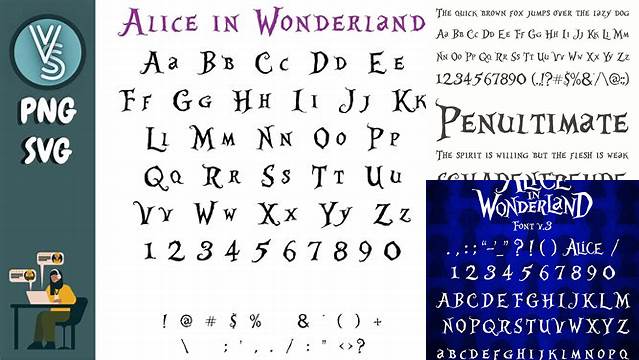
Alice In Wonderland Font: Free For Canva!
Hey guys! Ever wanted to give your designs that whimsical, Alice in Wonderland feel? Well, you're in luck! Using an Alice in Wonderland font in Canva is a fantastic way to add a touch of fantasy and nostalgia to your projects. Whether you're creating invitations, posters, or social media graphics, the right font can make all the difference. Let's dive into how you can find and use these magical fonts for free on Canva.
Choosing the Perfect Alice in Wonderland Font
Selecting the right font is key to capturing the essence of Alice in Wonderland. Think about the mood you want to create. Are you aiming for quirky and playful, or mysterious and enchanting? Different fonts evoke different feelings, so take your time to explore various options. Remember, the font should not only look good but also be legible and suitable for your specific design. Considerations like readability and overall aesthetic are super important. A font that's too elaborate might look cool but could be hard to read, especially in smaller sizes.
Top Free Alice in Wonderland Inspired Fonts for Canva
Alright, let's get to the good stuff! Finding free fonts that capture the spirit of Alice in Wonderland is easier than you might think. Canva offers a bunch of options, and there are also external sites where you can download fonts and upload them to Canva. Some popular choices include: 'Wonderland,' 'Curious Alice,' and 'Mad Hatter.' These fonts often feature whimsical serifs, playful curves, and a touch of vintage charm. Experiment with different combinations to see what works best for your project. Don't be afraid to mix and match fonts to create a unique and eye-catching design. Pair a decorative font with a simpler one for body text to maintain readability.
Using Alice in Wonderland Fonts for Invitations
Planning an Alice in Wonderland themed party? These fonts are perfect for invitations! Use a whimsical font for the main text and pair it with a simpler font for the details. Add some themed graphics like teacups, rabbits, and playing cards to complete the look. A well-chosen font can instantly set the tone and get your guests excited for the event. Don't forget to play with colors and textures to create a visually stunning invitation.
Creating Social Media Graphics with Wonderland Fonts
Want to add some magic to your social media posts? An Alice in Wonderland font can do the trick! Use it for quotes, announcements, or even just to add some personality to your brand. Make sure the font is legible on different devices and screen sizes. A bold and eye-catching font can help your posts stand out in a crowded feed. Experiment with different font pairings and color schemes to create a cohesive and visually appealing social media presence.
Designing Posters with Alice in Wonderland Fonts
Designing a poster? The right font is crucial. An Alice in Wonderland font can add a unique and memorable touch. Use it for the title or key message and choose a complementary font for the body text. Make sure the font is large enough to be easily read from a distance. Consider the overall layout and design elements to create a poster that grabs attention and effectively communicates your message. Think about incorporating iconic imagery from the story to enhance the theme.
Pairing Alice in Wonderland Fonts with Graphics
To really nail the Alice in Wonderland theme, pair your chosen font with relevant graphics. Think teacups, clocks, rabbits, and playing cards. Canva has a ton of free graphics you can use. Just search for "Alice in Wonderland" or related terms. Position the graphics strategically around your text to create a visually balanced and appealing design. Remember, less is often more. Don't overcrowd your design with too many elements. Focus on creating a cohesive and harmonious composition.
Color Palettes that Complement Alice in Wonderland Fonts
The right color palette can enhance the Alice in Wonderland feel of your design. Think pastel colors, vintage tones, and whimsical combinations. Soft blues, pinks, and greens work well, as do muted yellows and creams. Experiment with different color combinations to find what works best for your project. Consider using a color palette generator to help you create a cohesive and visually appealing color scheme. Don't be afraid to add a pop of color with a brighter accent shade.
Ensuring Legibility with Decorative Fonts
While Alice in Wonderland fonts are often decorative, it's important to ensure legibility. Choose a font size that's easy to read, and use sufficient contrast between the text and background. Avoid using overly complex fonts for large blocks of text. Instead, use them sparingly for headlines or titles. Test your design on different devices and screen sizes to make sure the text remains legible. Consider adding a subtle shadow or outline to the text to improve readability.
Using Font Effects to Enhance the Wonderland Theme
Canva offers various font effects that can enhance the Alice in Wonderland theme. Experiment with shadows, outlines, and glows to add depth and dimension to your text. Use these effects sparingly to avoid overwhelming the design. A subtle shadow can add a touch of elegance, while a bold outline can make the text stand out. Consider using a slightly textured effect to give the font a vintage feel. Play around with different combinations to find what works best for your project.
Creating a Consistent Brand with Alice in Wonderland Fonts
If you're using Alice in Wonderland fonts for branding, consistency is key. Choose a font or font combination that reflects your brand's personality and use it consistently across all your marketing materials. This will help create a cohesive and recognizable brand identity. Consider developing a style guide that outlines your font choices, color palettes, and graphic elements. This will ensure that all your designs are consistent and on-brand.
Alice in Wonderland Font for Business Cards
Using an Alice in Wonderland font on your business cards can make a memorable impression. Choose a font that's both eye-catching and legible. Keep the design clean and simple, focusing on essential information like your name, title, and contact details. Consider using a themed graphic or color palette to enhance the overall design. A well-designed business card can be a powerful marketing tool, helping you stand out from the competition.
Alice in Wonderland Font for Website Headers
Your website header is one of the first things visitors see, so make it count! An Alice in Wonderland font can add a touch of whimsy and personality. Make sure the font is legible and works well with the overall design of your website. Consider using a contrasting color to make the header text stand out. A well-designed header can grab visitors' attention and encourage them to explore your site further.
Alice in Wonderland Font for Book Covers
Designing a book cover? An Alice in Wonderland font can be a great choice, especially for fantasy or children's books. Choose a font that reflects the tone and style of your book. Pair it with a captivating image to create a visually stunning cover. Consider the target audience when making your font and design choices. A well-designed book cover can attract readers and increase sales.
Alice in Wonderland Font for Merchandise
Want to create Alice in Wonderland themed merchandise? These fonts are perfect for t-shirts, mugs, and other products. Choose a font that's both eye-catching and easy to read. Consider the placement and size of the font on the product. A well-designed piece of merchandise can be a great way to promote your brand or express your personal style.
Alice in Wonderland Font for Party Decorations
Planning an Alice in Wonderland themed party? Use these fonts for banners, signs, and other decorations. Choose a font that complements the overall theme and color scheme. Consider using themed graphics to enhance the design. A well-decorated party can create a magical and memorable experience for your guests.
Alice in Wonderland Font for Scrapbooking
These fonts are perfect for adding a whimsical touch to your scrapbook pages. Use them for titles, captions, and journaling. Choose a font that complements the photos and other elements on the page. Consider using themed embellishments to enhance the overall design. A well-designed scrapbook page can be a cherished keepsake for years to come.
Alice in Wonderland Font for Newsletters
Adding an Alice in Wonderland font to your newsletter can grab readers' attention. Use it for headlines, titles, or even throughout the body of your newsletter. Be sure to pair it with a simpler font to keep the text easy to read. A newsletter with a unique font can really make your content stand out.
Alice in Wonderland Font for Presentations
Using an Alice in Wonderland font in your presentations can bring a creative and engaging twist. It's perfect for adding a touch of whimsy to topics that might otherwise seem dry or boring. Always make sure the font is legible from the back of the room and doesn't distract from the content itself.
Combining Alice in Wonderland Fonts with Other Font Styles
The key to using an Alice in Wonderland font effectively is knowing how to pair it. Use it for headings and titles, and then a more legible, classic font for the main text. This keeps the design interesting without sacrificing readability.
Creating Vintage Designs with Alice in Wonderland Fonts
Many Alice in Wonderland fonts have a distinct vintage feel, making them perfect for retro-themed designs. Combine them with other vintage elements like distressed textures, old-fashioned illustrations, and muted color palettes to create a truly authentic look.
Alice in Wonderland Font for Children's Books
When designing a children's book, an Alice in Wonderland font can instantly capture the imagination of young readers. Just be mindful of readability. The font should be fun but also easy for children to read and understand.
Using Alice in Wonderland Font for Quotes
Quotes from Alice in Wonderland look amazing when displayed in a font that reflects the story's whimsical nature. This is a great way to create shareable social media content or inspirational posters.
Alice in Wonderland Font and Its Impact on Design Psychology
The choice of an Alice in Wonderland font can significantly impact how viewers perceive your design. The playful, slightly chaotic nature of these fonts can evoke feelings of nostalgia, wonder, and creativity, making them ideal for projects that aim to inspire or entertain.
The History and Evolution of Alice in Wonderland Fonts
The fonts associated with Alice in Wonderland have evolved over time, often drawing inspiration from Victorian-era typography. Understanding this history can help you choose the perfect font to match the tone and era of your project.
Alice in Wonderland Font for Logo Design: Is It a Good Idea?
Using an Alice in Wonderland font for a logo can be risky. While it can be creative and memorable, it might not be appropriate for all brands. Consider whether the font aligns with your brand's identity and target audience before making a decision.
Alice in Wonderland Font: Licensing and Usage Rights
Before using any Alice in Wonderland font, especially for commercial projects, make sure you understand the licensing and usage rights. Many fonts are free for personal use but require a license for commercial use.
Future Trends in Alice in Wonderland Font Design
As design trends evolve, so too will the fonts inspired by Alice in Wonderland. Keep an eye out for new interpretations and variations that push the boundaries of creativity and typography.
Alice in Wonderland Font: A Timeless Design Choice
Despite changing trends, Alice in Wonderland fonts remain a timeless design choice, offering a unique blend of nostalgia, whimsy, and creativity. Whether you're designing invitations, websites, or marketing materials, these fonts can add a touch of magic to your project.